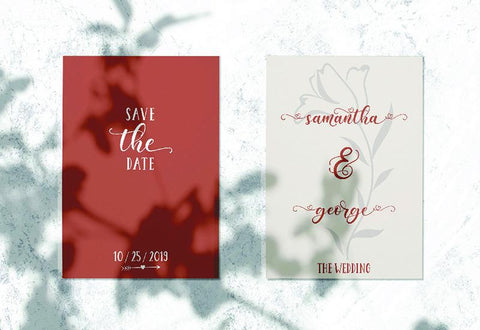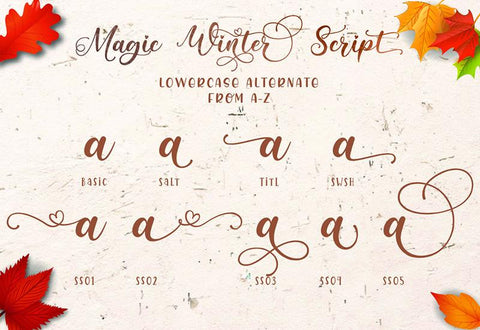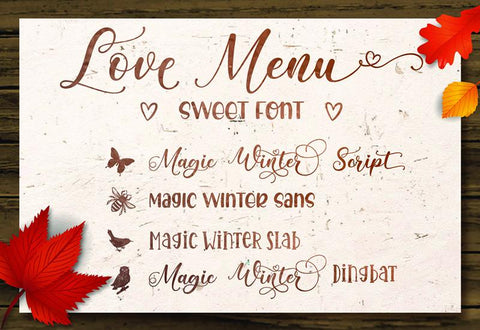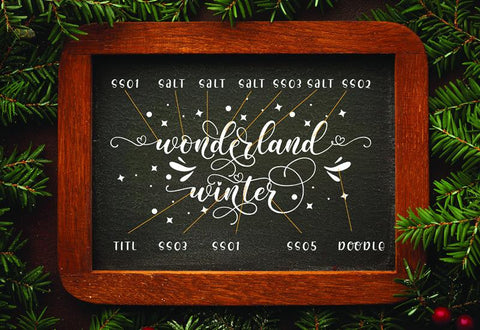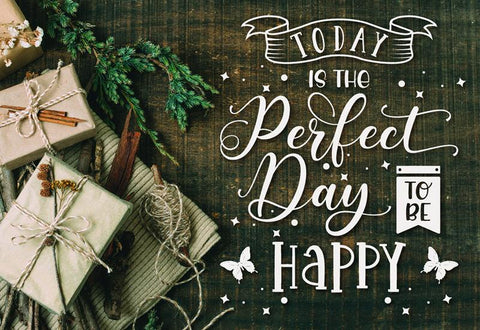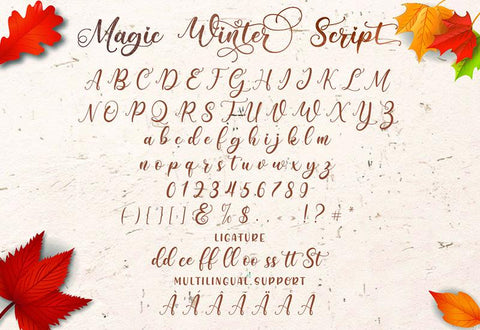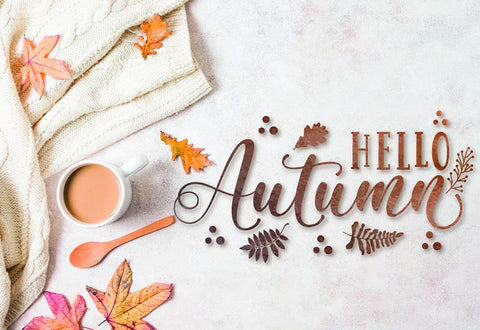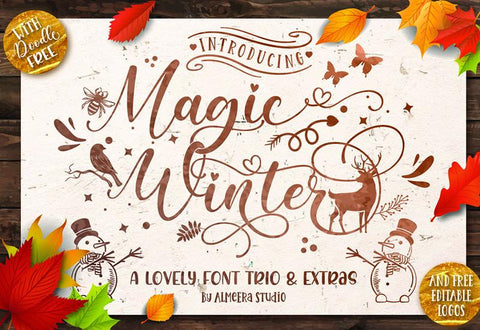
Magic Winter Font Trio & Extras
Magic Winter is our new product. This is a trio font that can be paired with each other.
Magic Winter comes with Magic Winter script with hundreds of alternate, Magic Winter sans, and Magic Winter Slab. Magic Winter is really a good font for logos, blogs / web headlines, clothing, winter, quotes, invitations, posters, cafe / restaurant signs, and many others.
We also provide bonus doodles and editable logos for this font, so you can create many designs for your project.